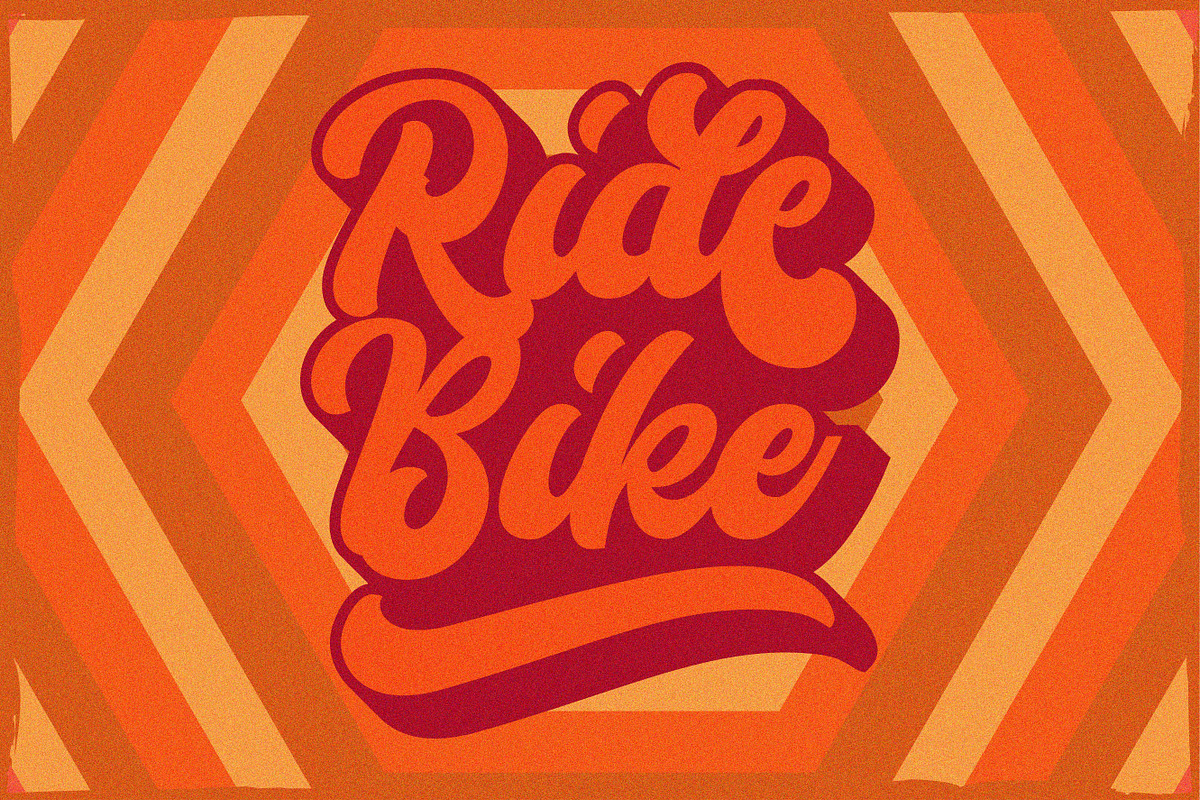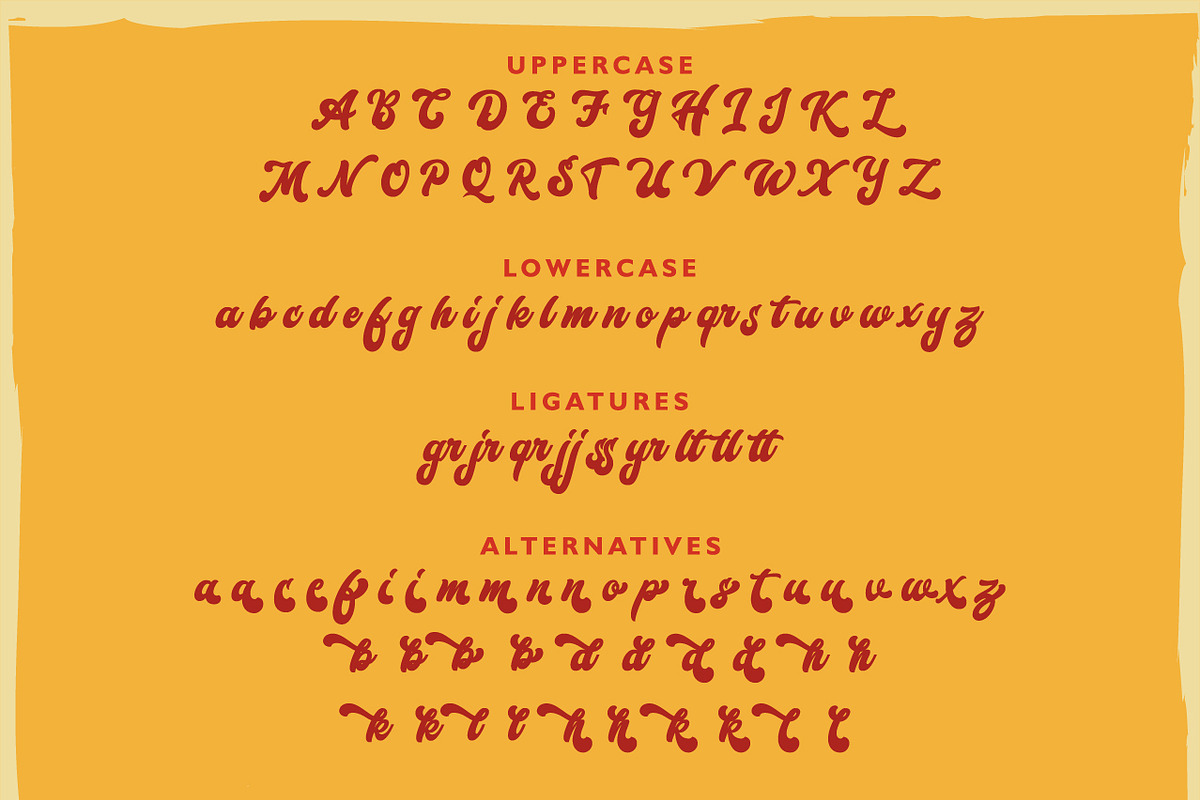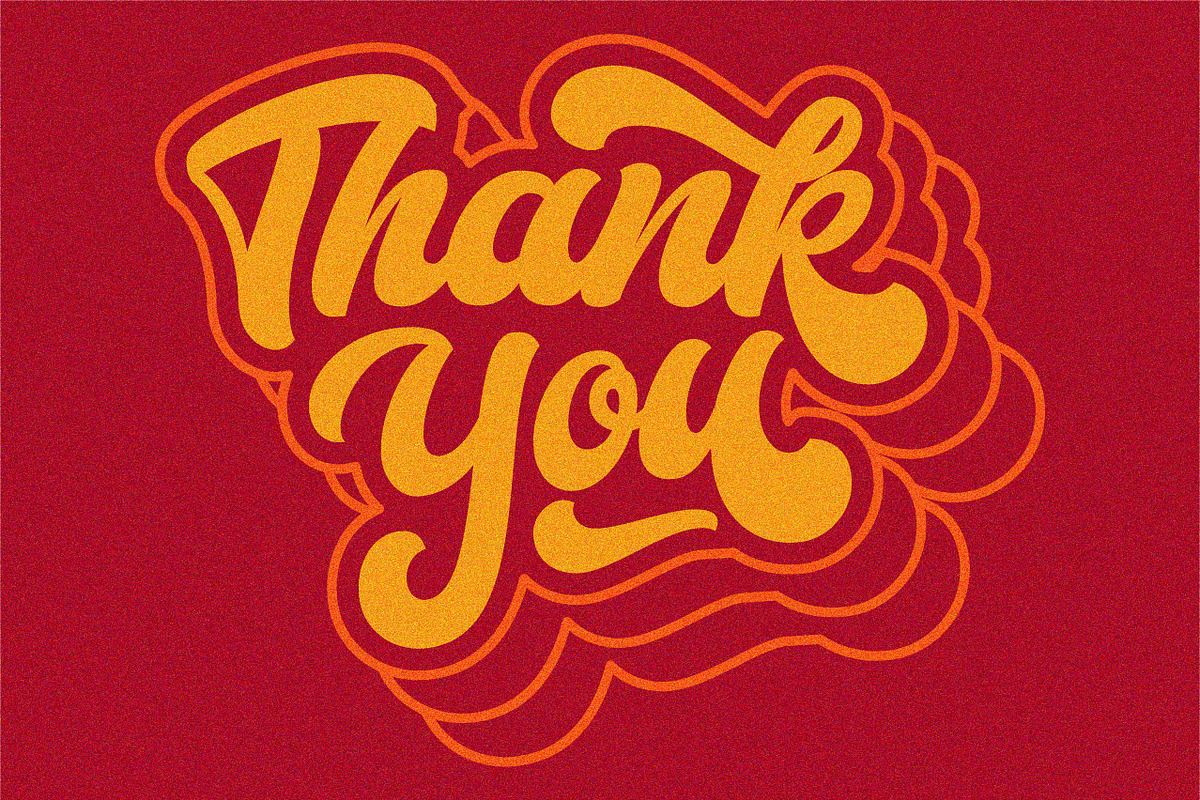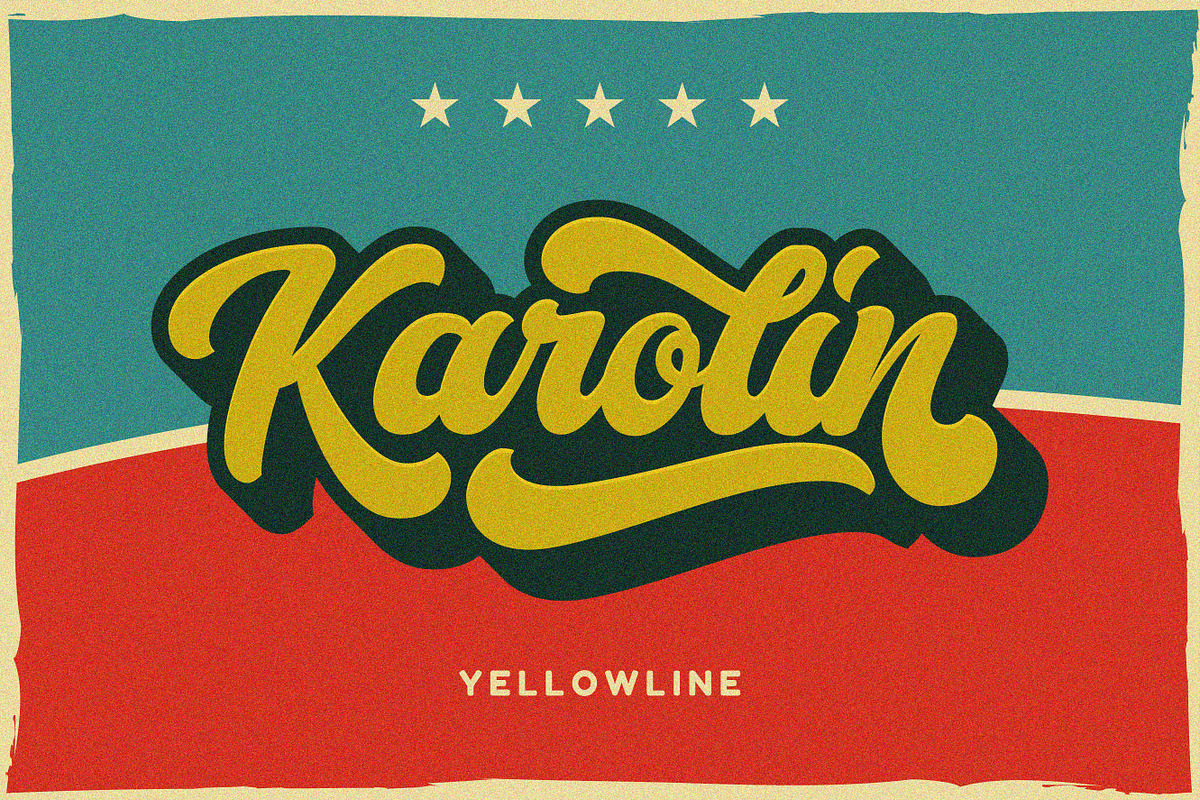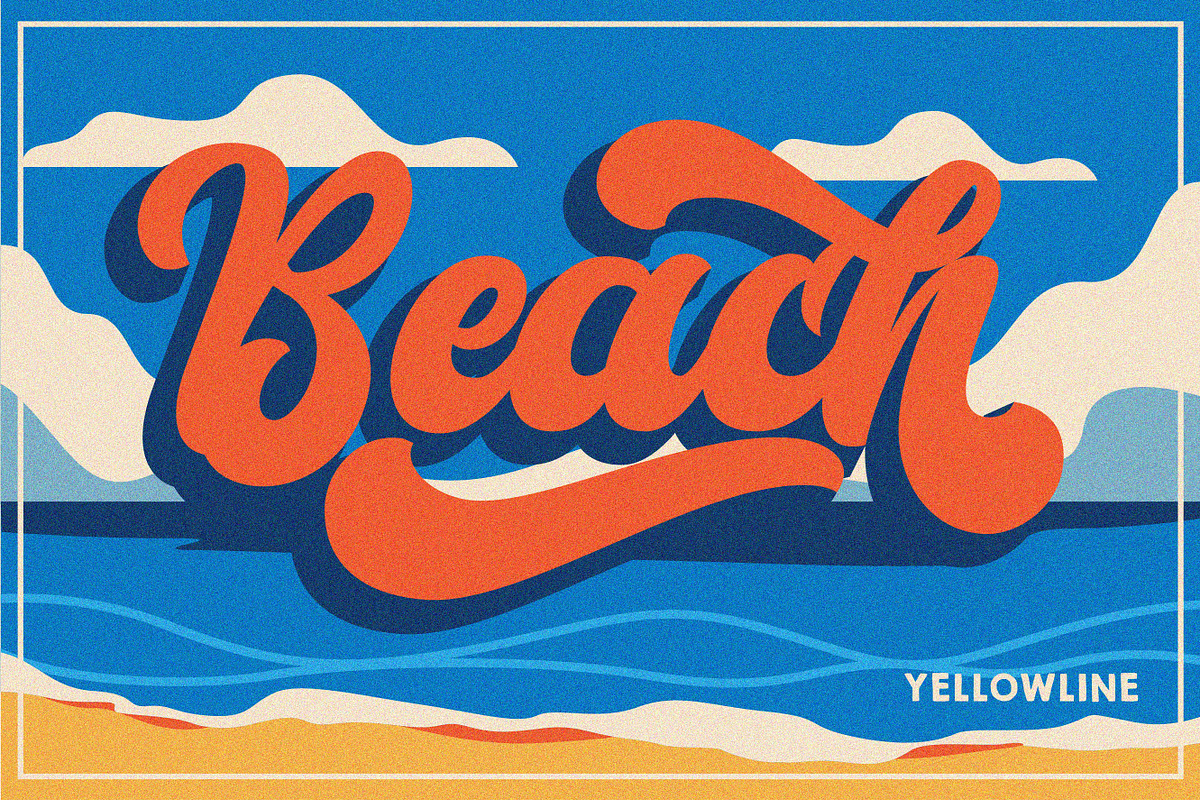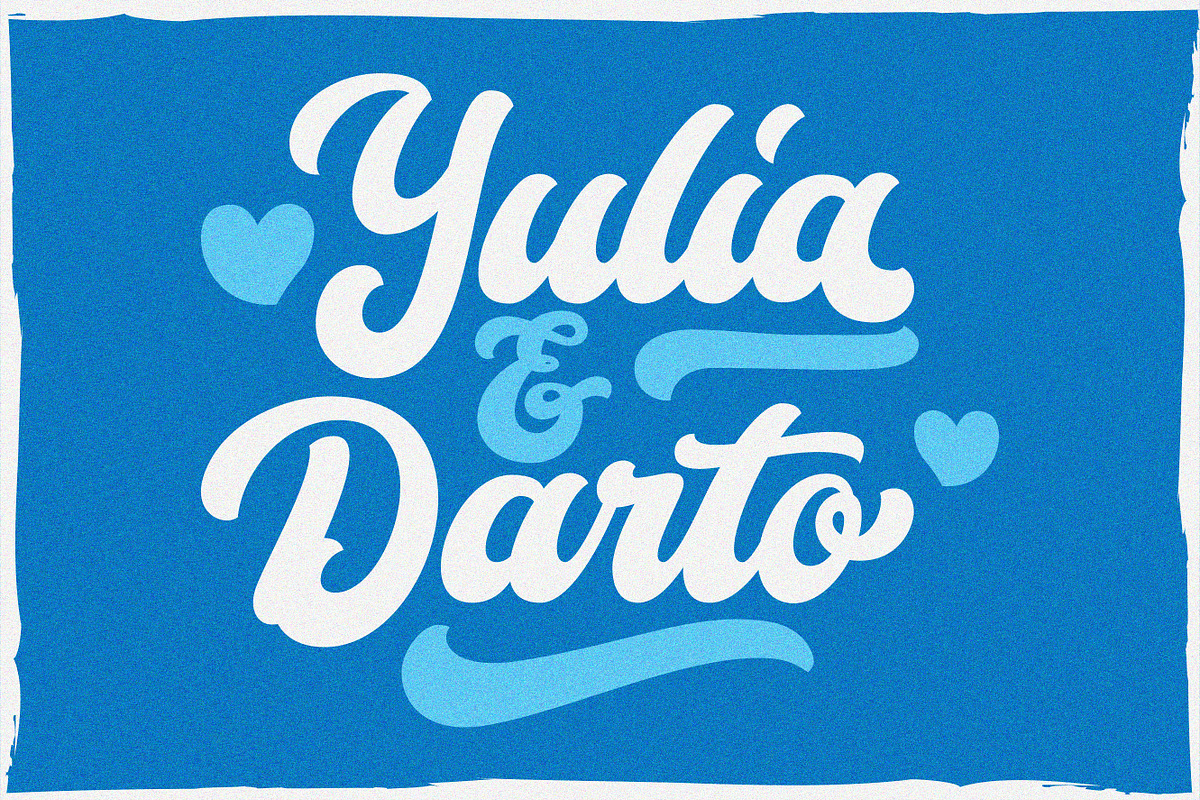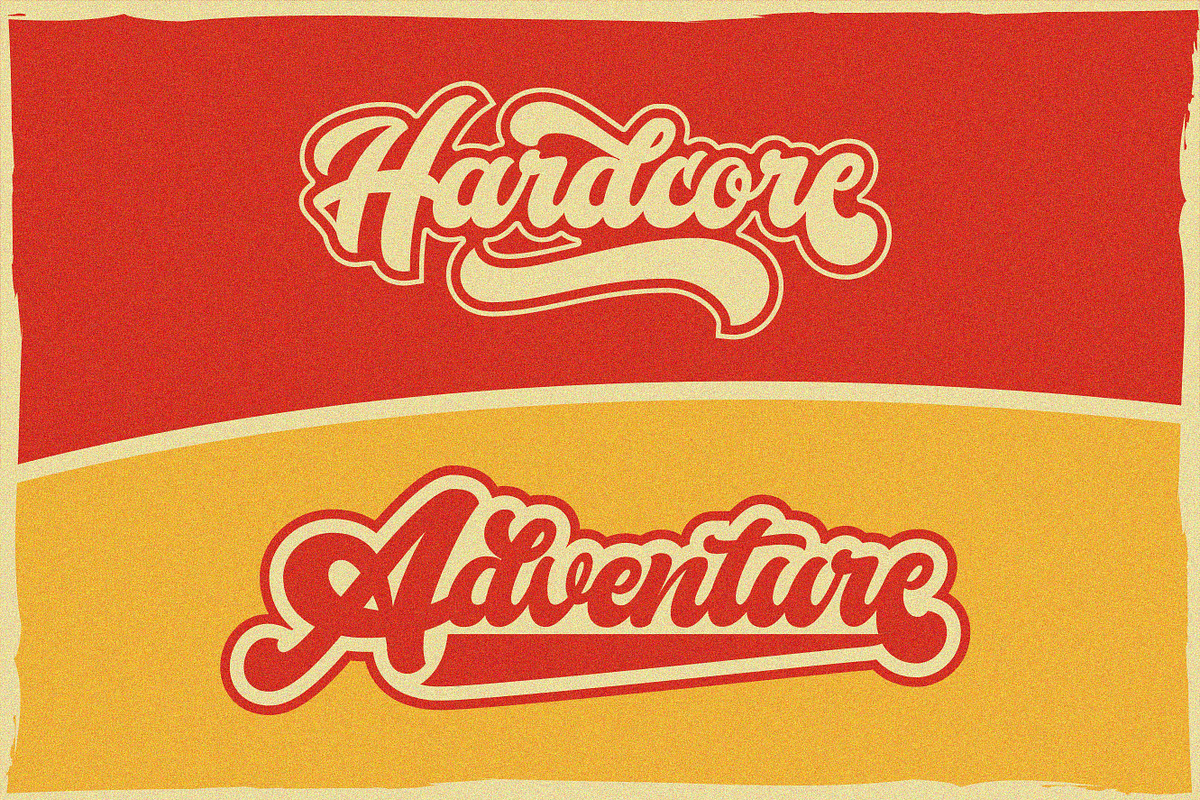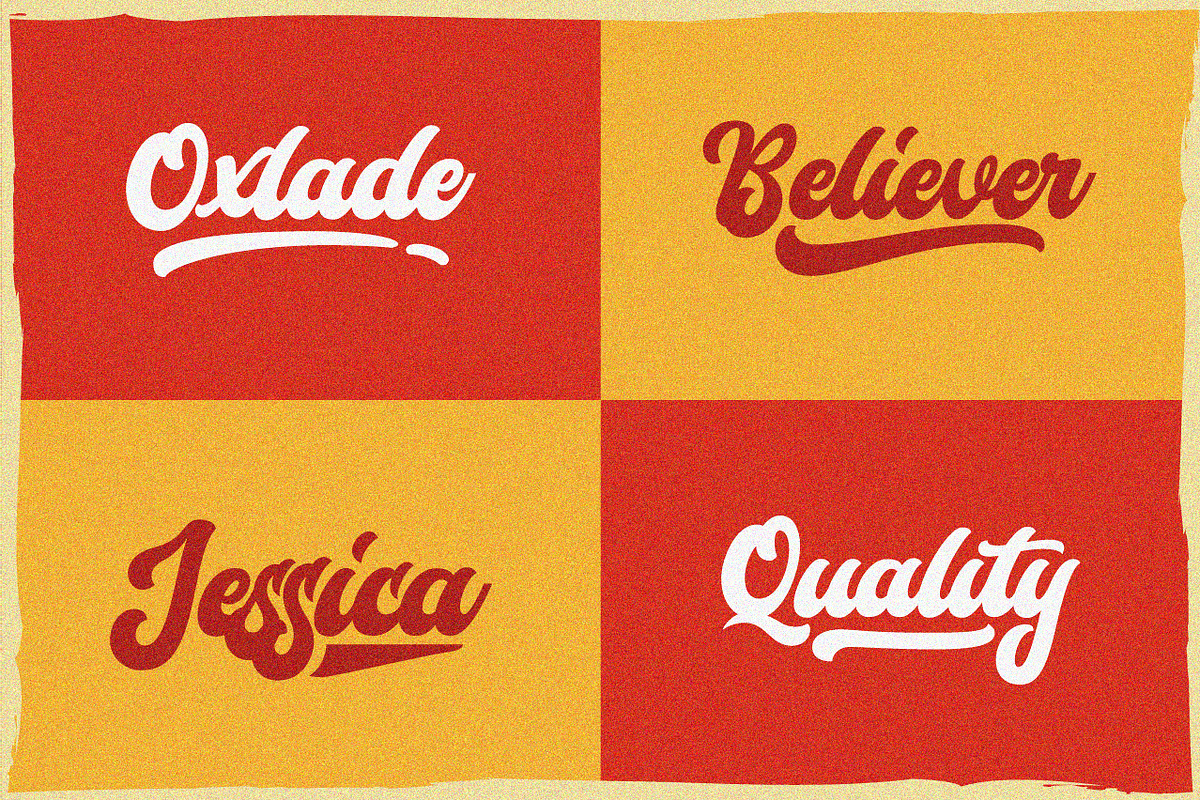
Karolin - Retro Font
Introducing a new bold script font called Karolin. Karolin is perfect choice for your merchandise, clothing, apparel, label, stationary, e-commerce design, logo, packaging, and more design projects.
- Swash Font